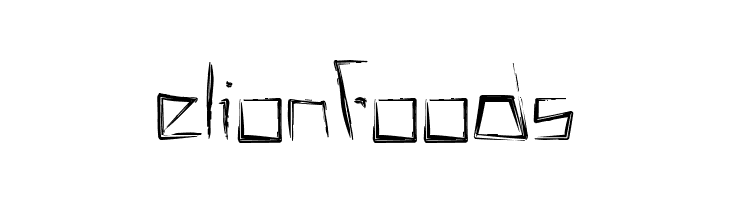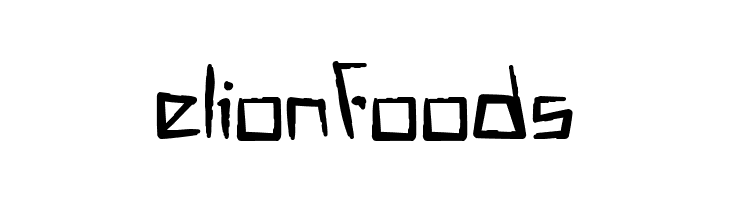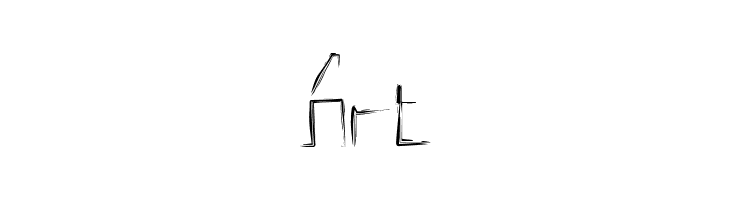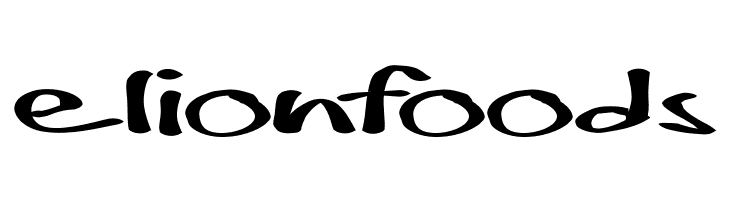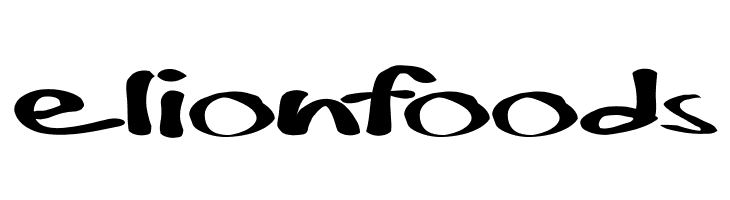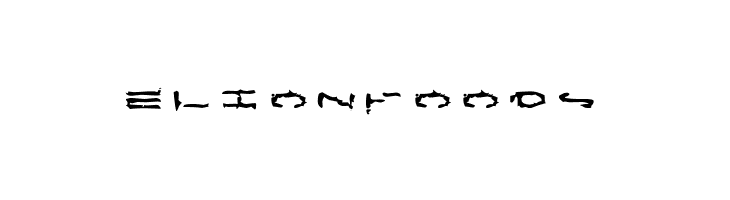
A futuristic, distressed font with fragmented strokes and a bold, edgy appearance.
A bold, distressed font with a horizontal line pattern and artistic flair.
A decorative, grunge-style font with a distressed, textured appearance.
An edgy, angular font with a hand-drawn, geometric style.
A bold, angular font with a hand-drawn, edgy aesthetic.
A bold, heavy, hand-drawn font with a geometric and edgy style.
A playful, informal handwritten font with dynamic strokes.
A bold, playful handwritten font with a casual and dynamic style.